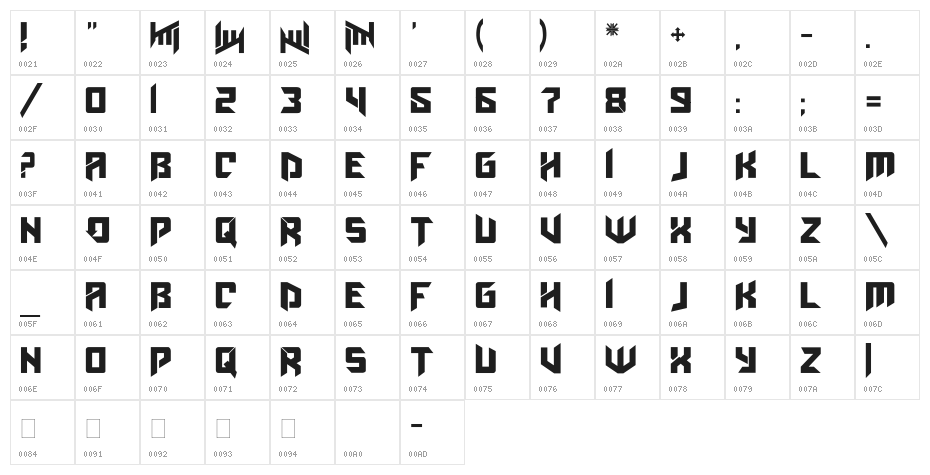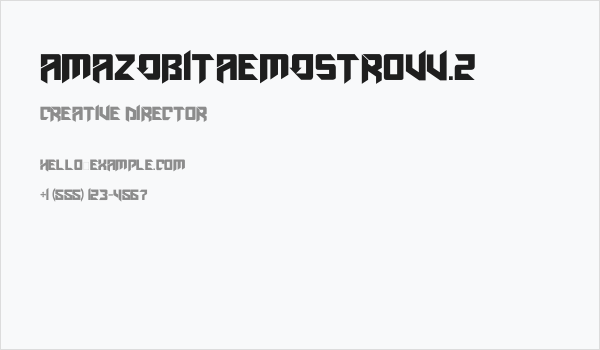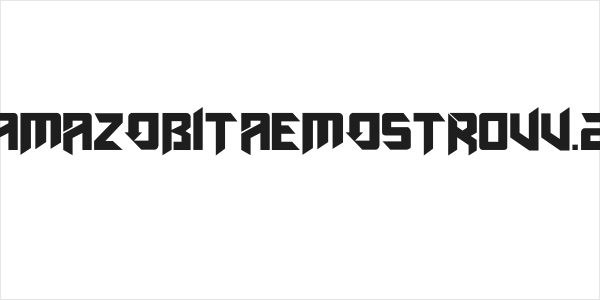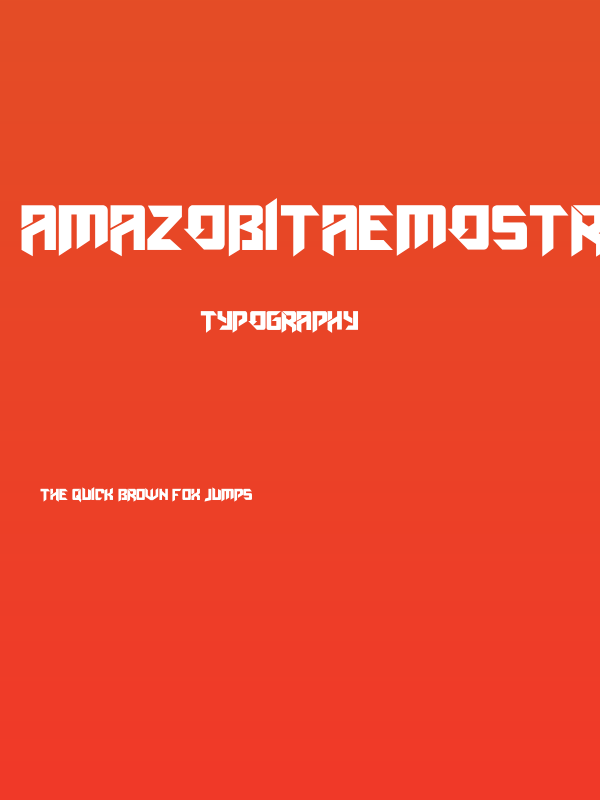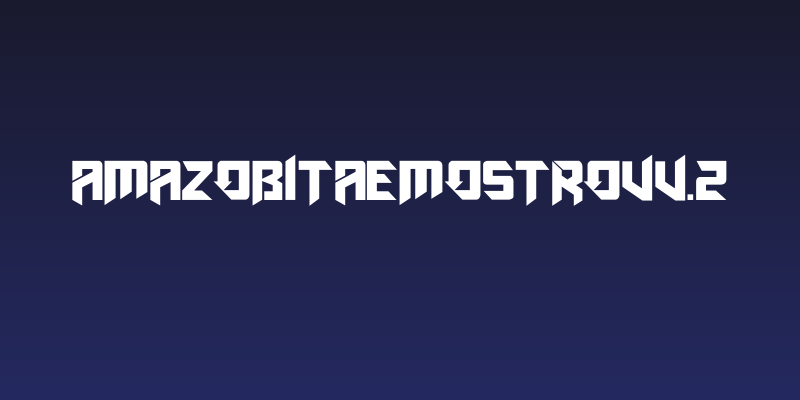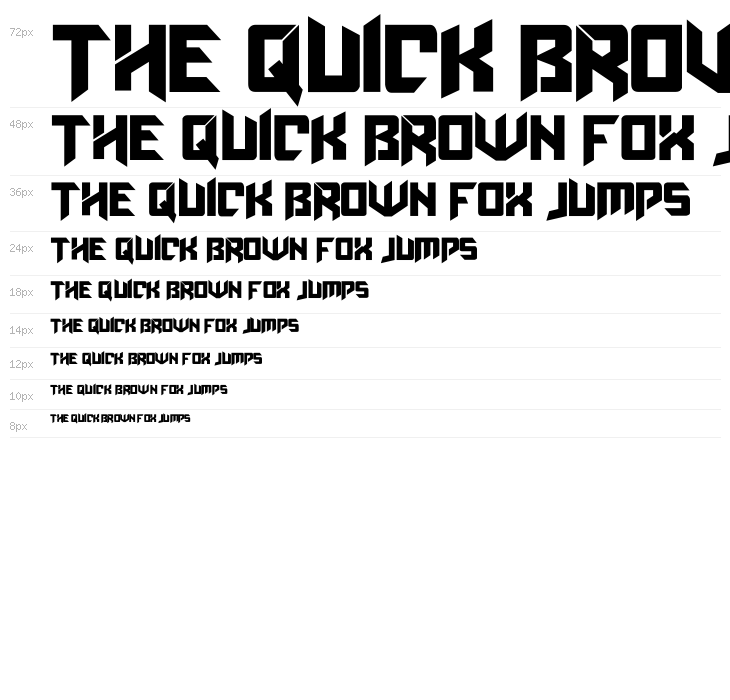
AmazObitaemOstrovV.2 Font
AmazObitaemOstrovV.2 Description
This font features a bold and angular design, characterized by sharp edges and geometric shapes. Each letterform is crafted with precision, creating a futuristic and edgy appearance. The uppercase and lowercase letters maintain a consistent style, with a strong emphasis on diagonal lines and pointed terminals. Numbers and special characters are designed to match the overall aesthetic, ensuring a cohesive look across all elements. The font's unique style makes it stand out, offering a modern and dynamic feel that is both eye-catching and memorable.
Overall StyleFuturistic, Edgy
Proposed ProjectsIdeal for sci-fi themed projects, video game titles, posters, and branding that requires a modern and edgy look.